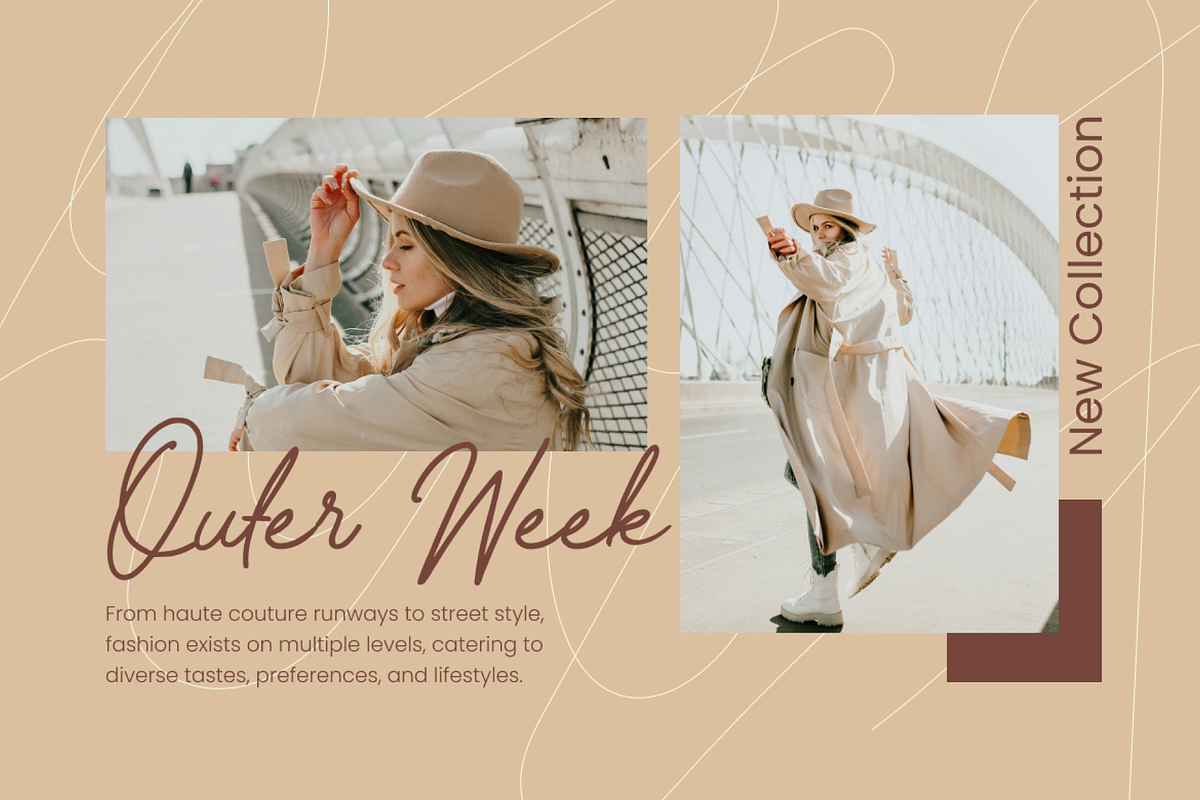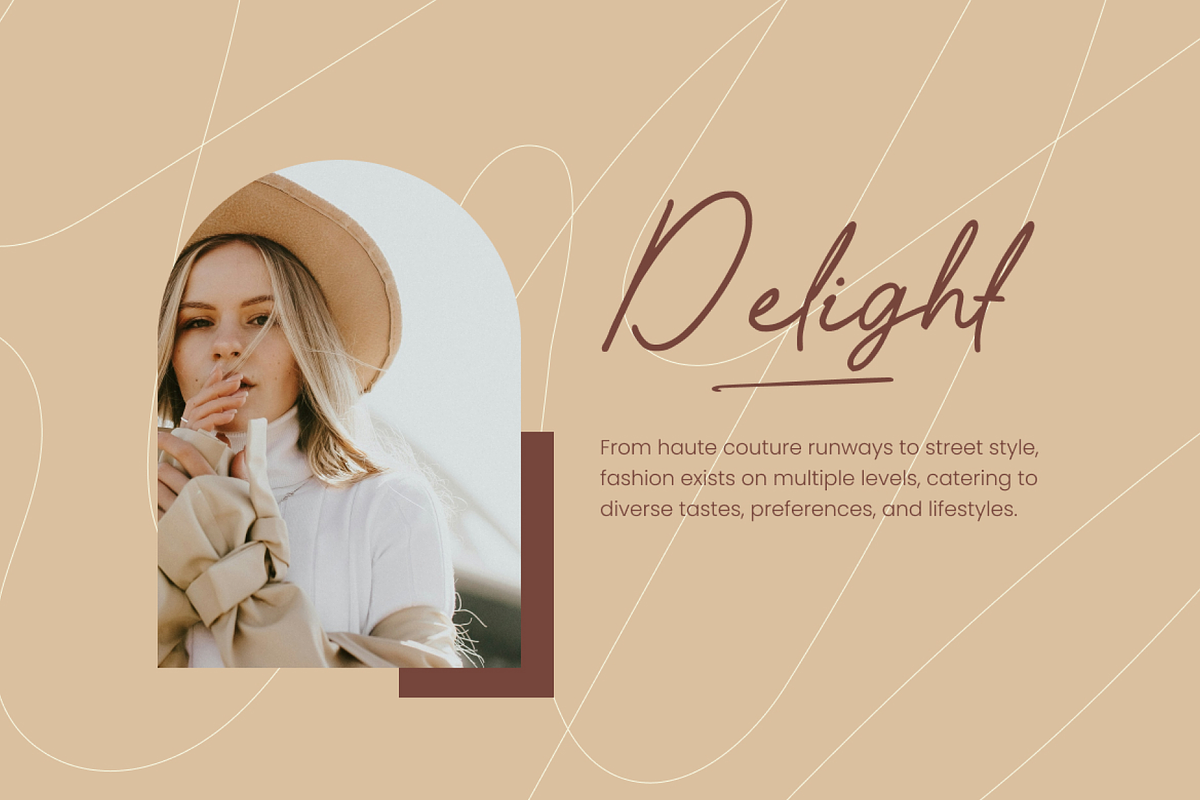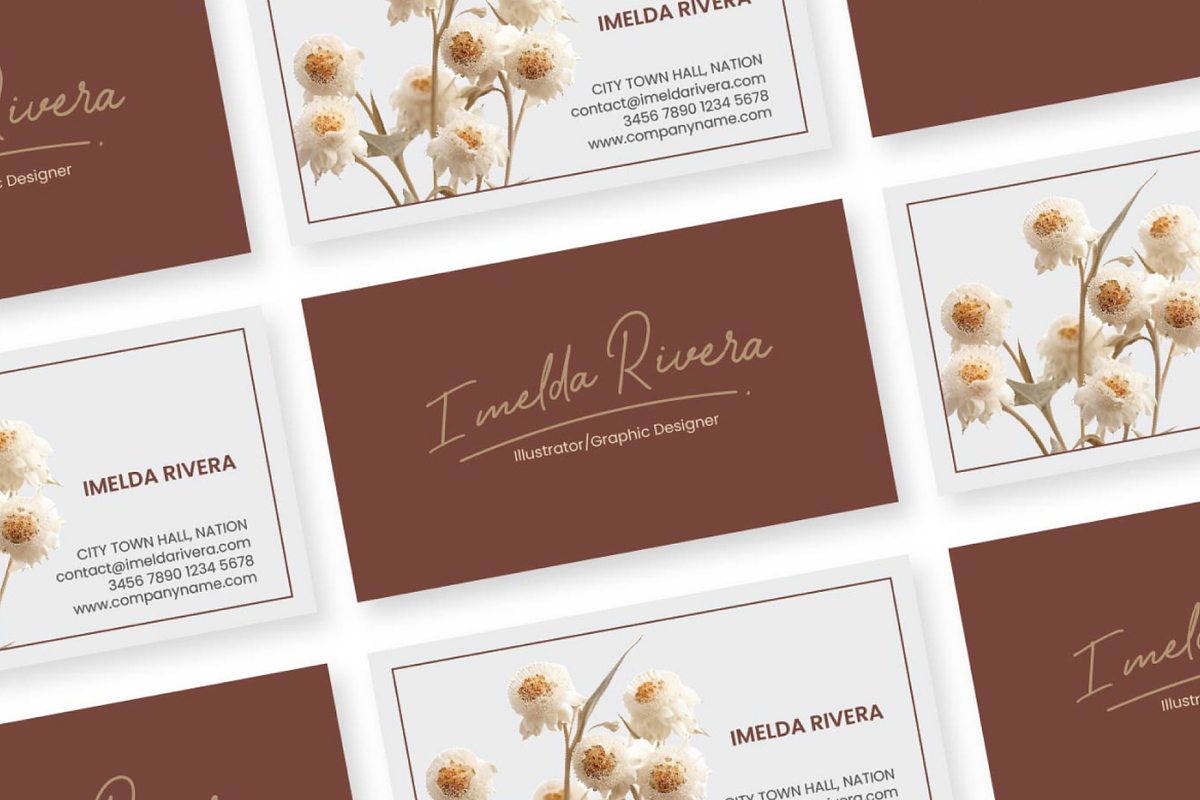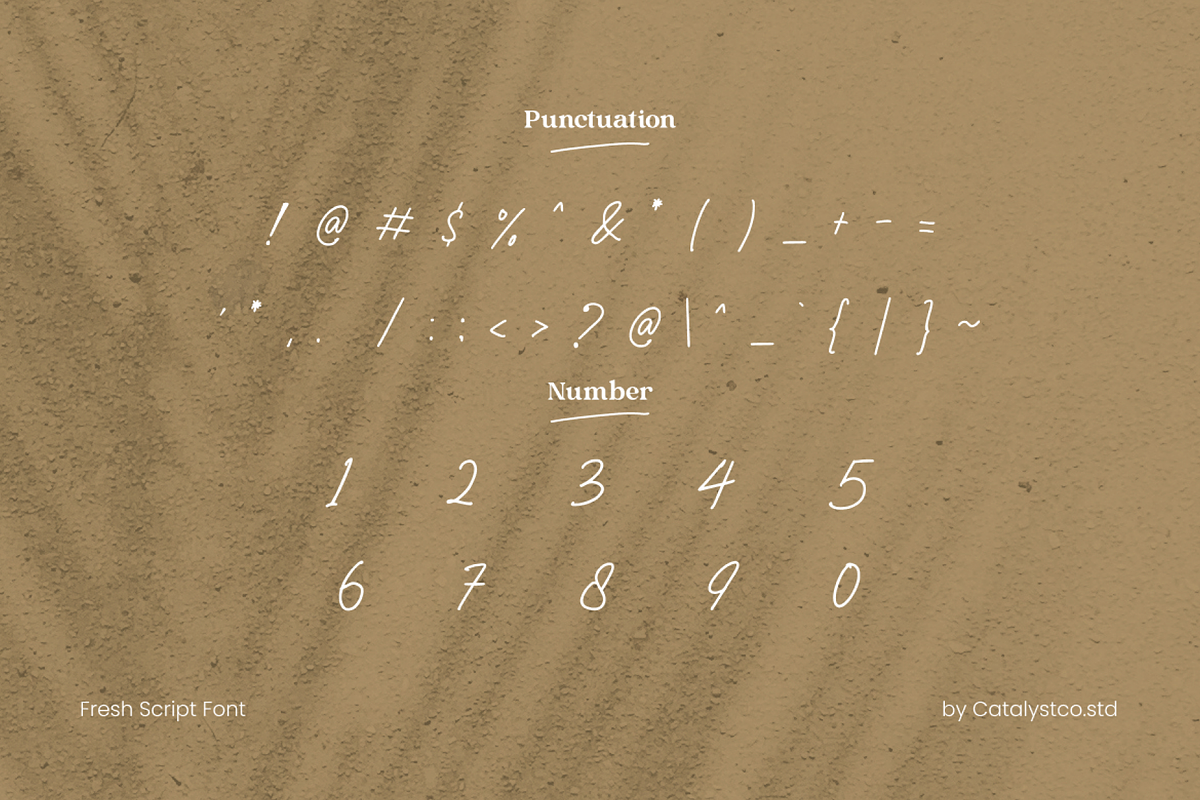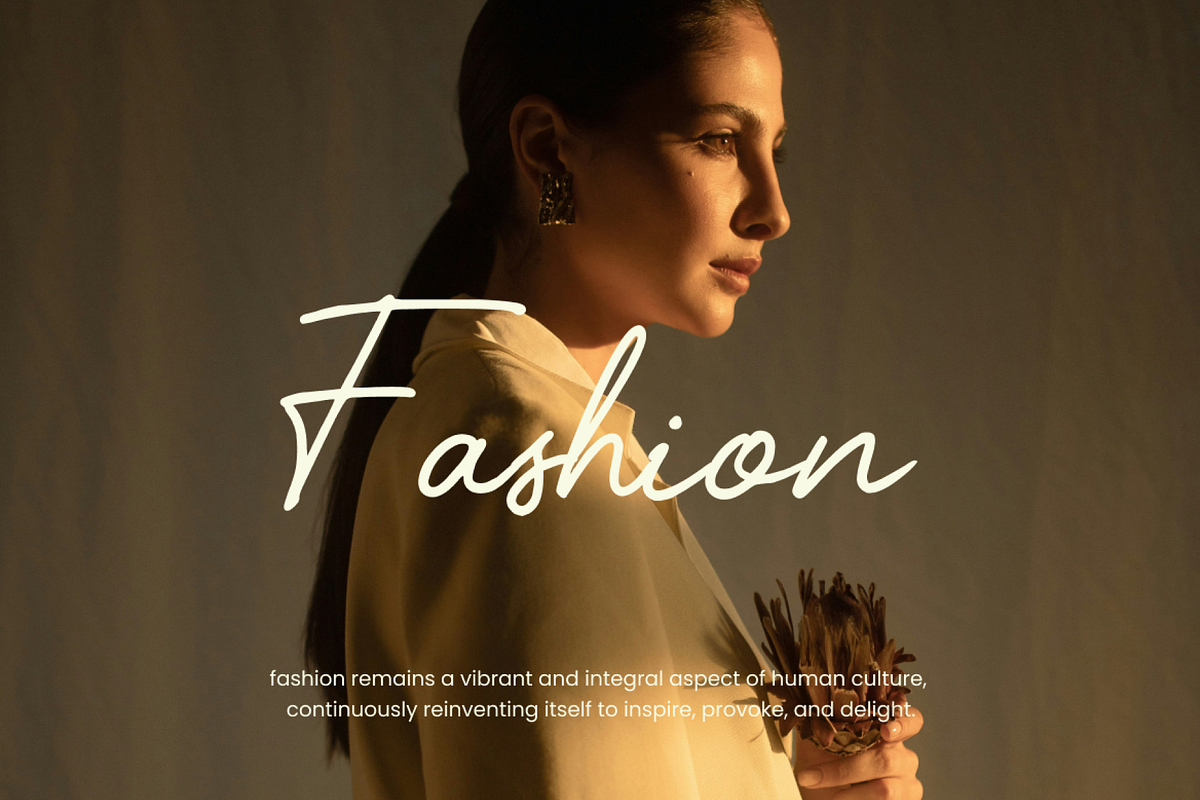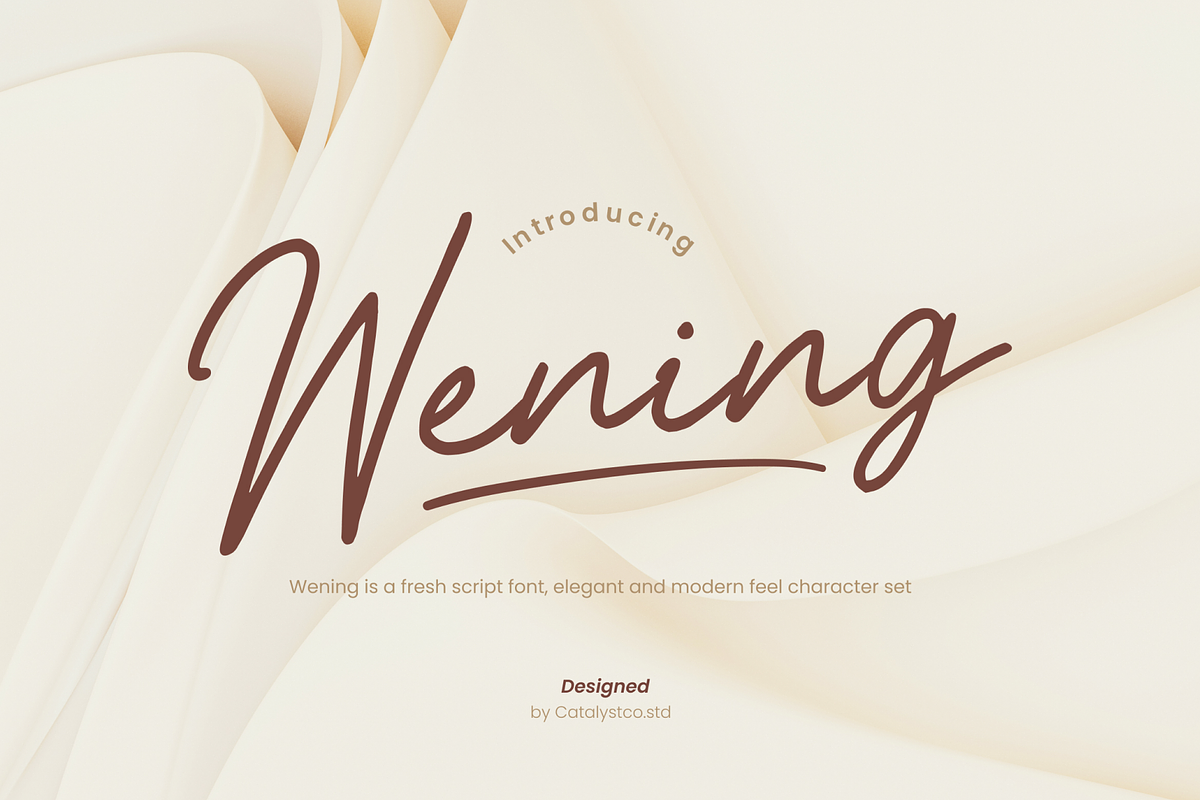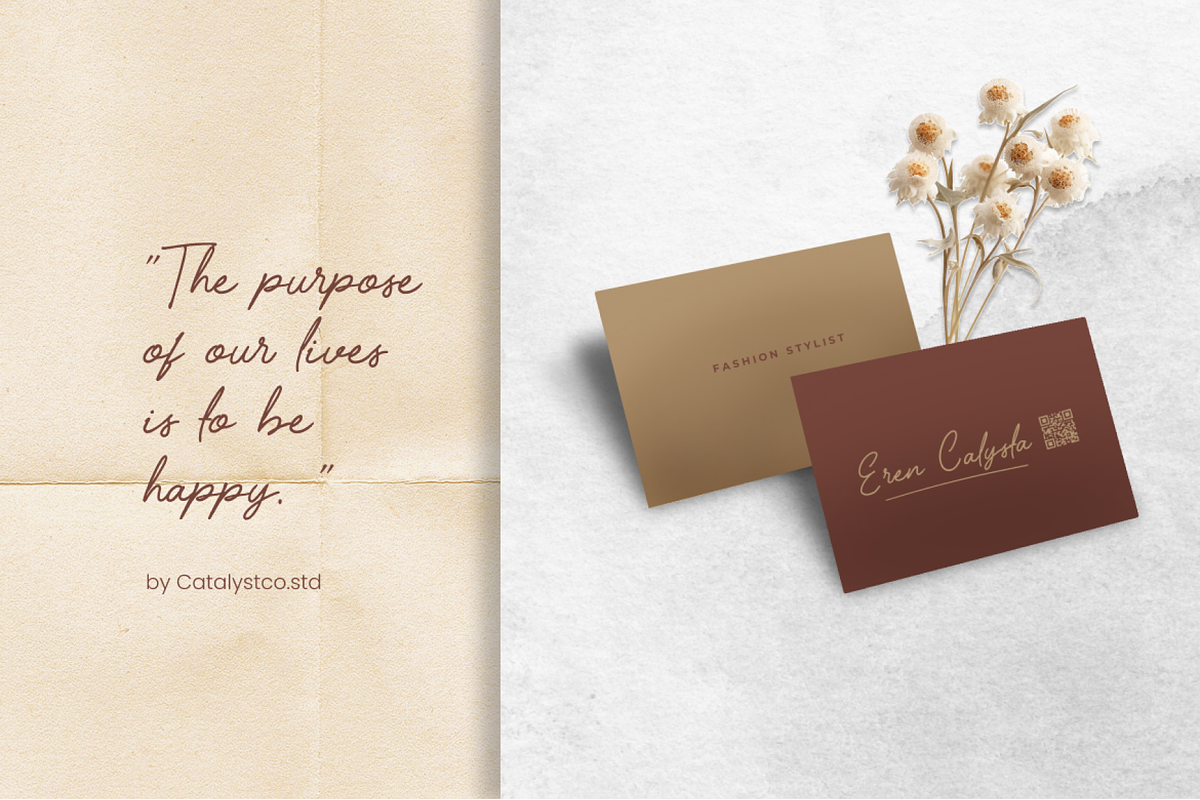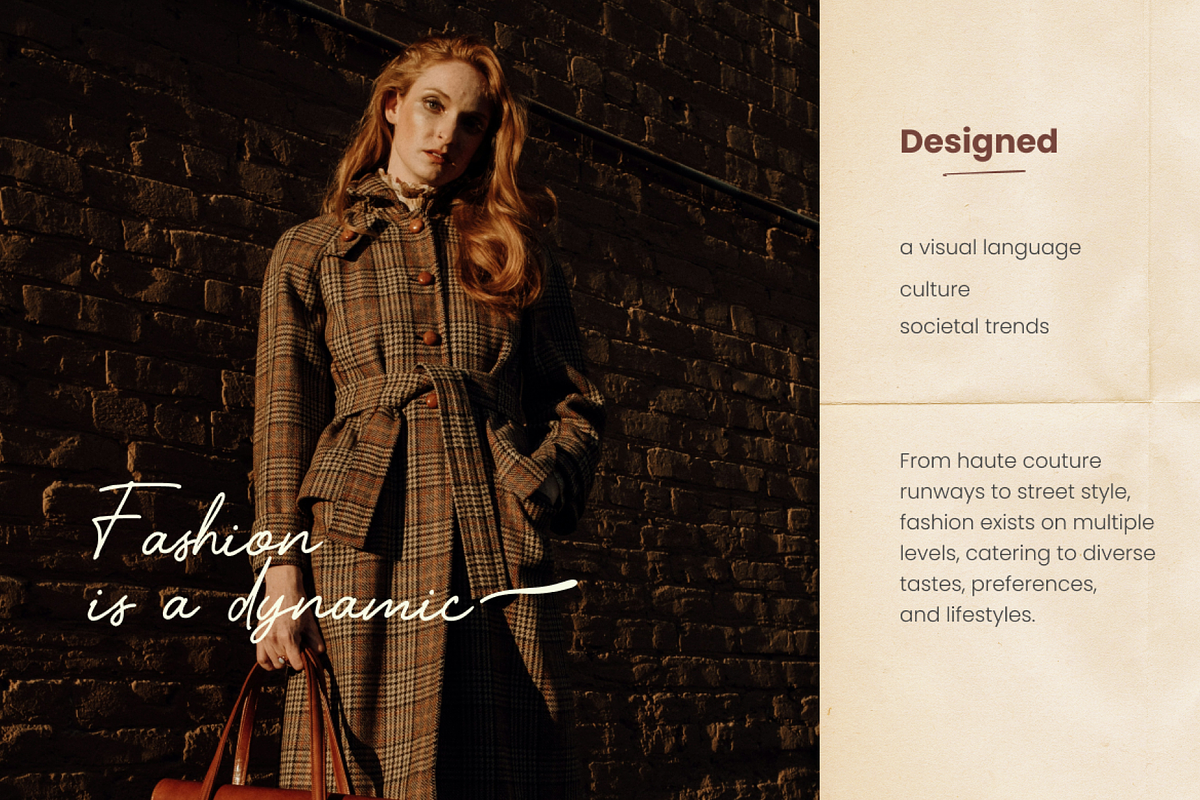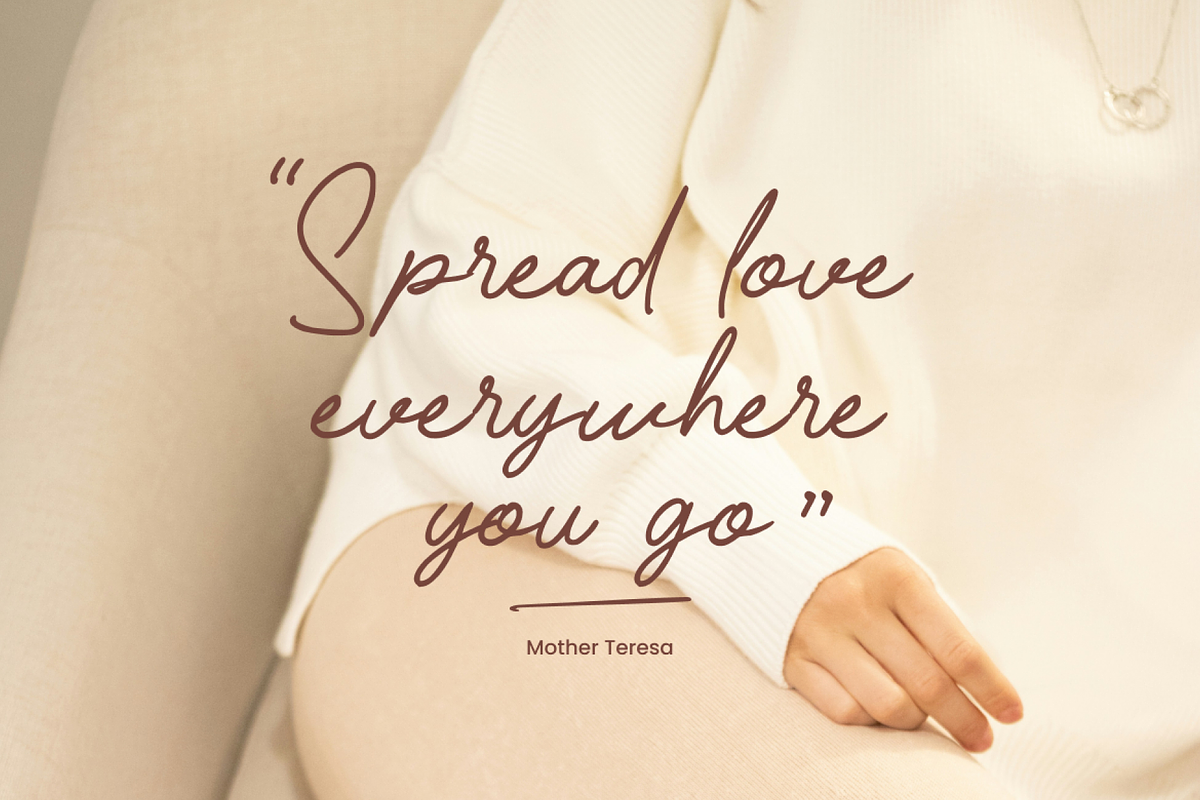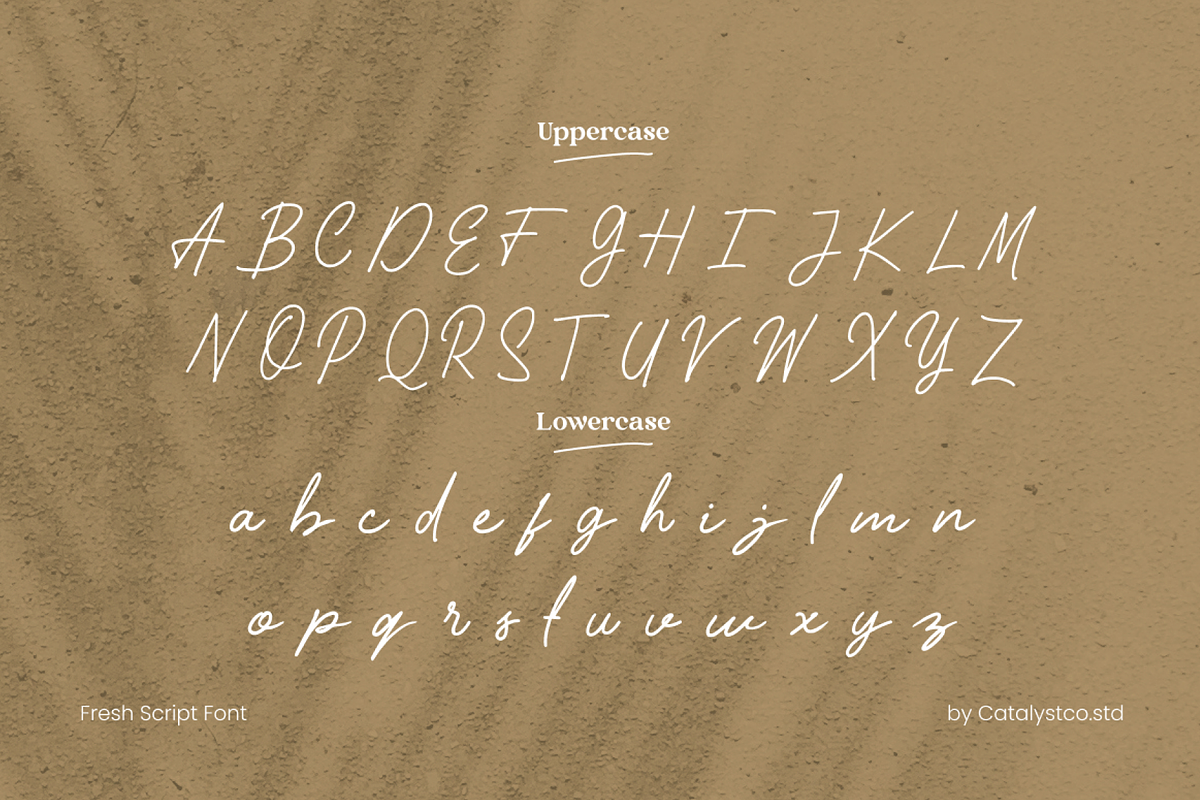
Wening Fresh Script Font
Wening Fresh Script Font typeface excellent used for the manufacture quote text, logotype, header magazine, and many more.
- Numeral & Punctuations